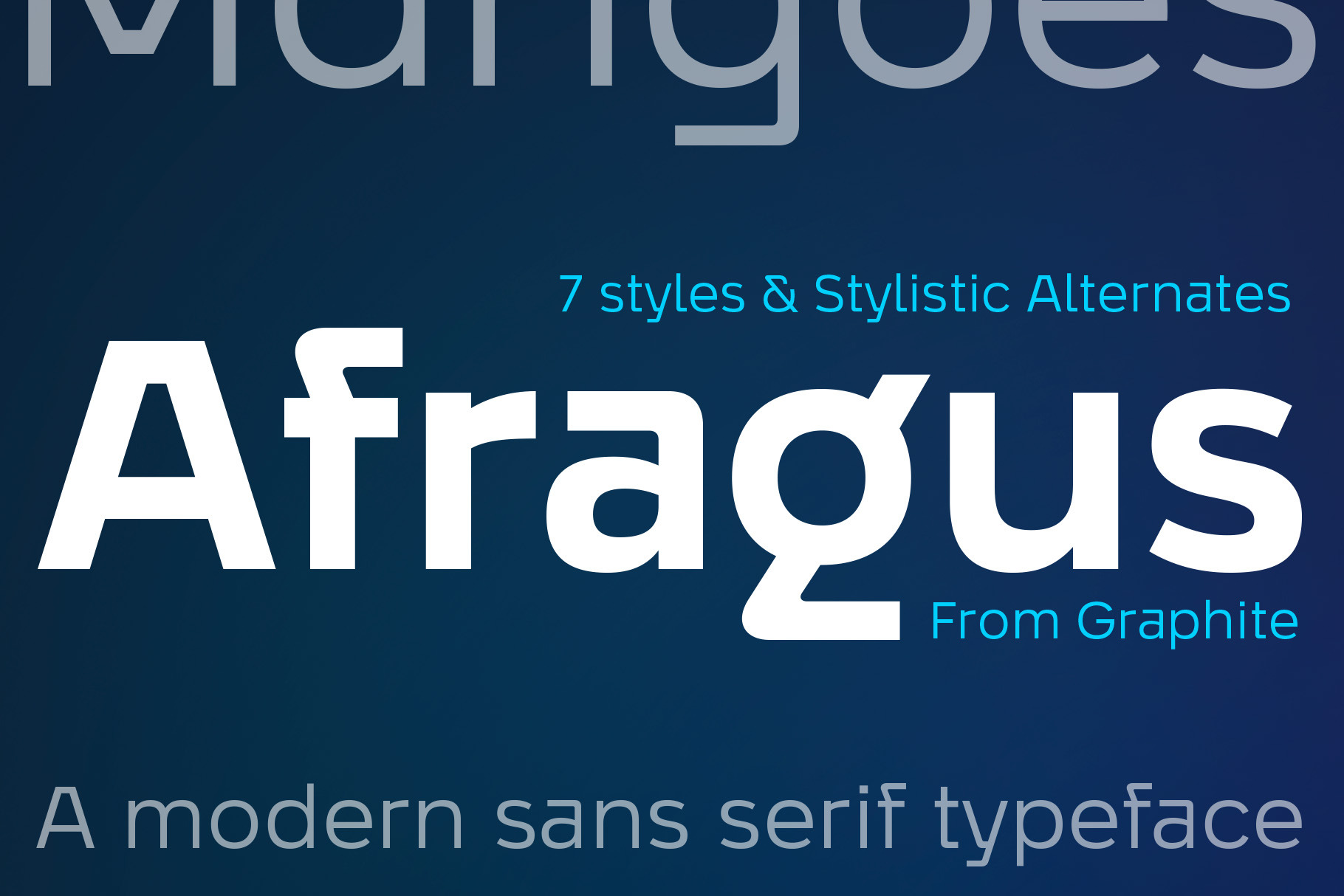
Afragus font family
Afragus is a modern sans serif family available in seven weights. Its distinctness is characterised by a certain angular quirkiness with an underlying clean modern geometric structure. A simple yet robust design, with added stylistic alternates, gives Afragus flexibility and makes it suitable for various applications. Its adaptability makes it well-suited for both smaller text and larger point sizes, making it an excellent choice for branding, logos, advertising, signage, display, transit, editorial work, and more.z